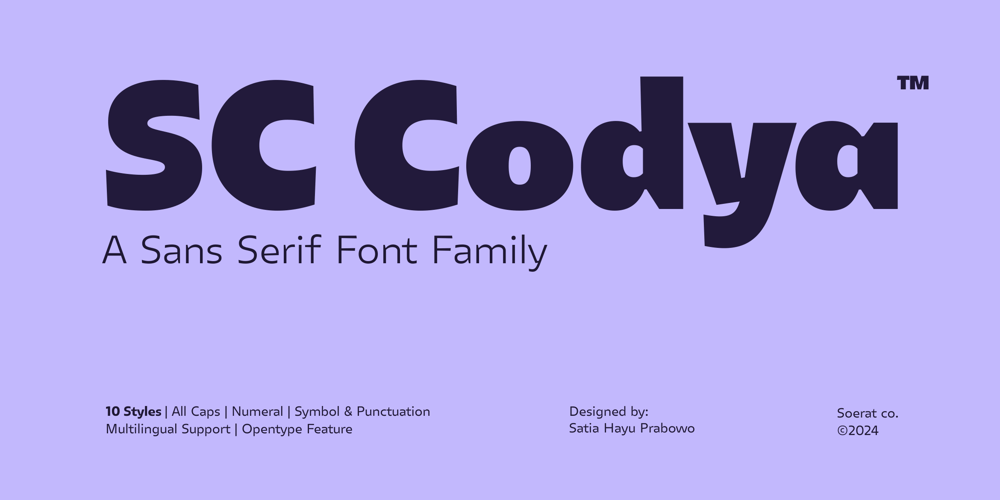
SC Codya Font Family was designed by Satia Hayu Prabowo and published by Soerat Company. SC Codya contains 11 styles and family package options. SC Codya is a contemporary sans serif inspired by retro poster font. This family of 10 weights with over 700+ glyphs per style. SC Codya supports around 150+ languages in Latin and Cyrillic script. The wide letterform and angled terminals are the identity of this letter. Designed with functional letters in mind, SC Codya is the right choice for advertising, packaging, logo, editorial and publishing, branding and other creative industries.